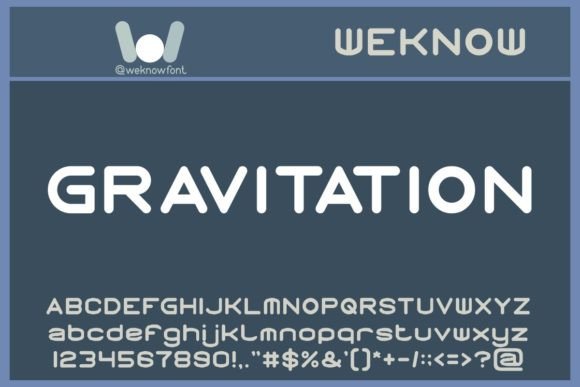
Prepare to be mesmerized by Gravitation Font, the sans serif font that's destined to elevate your creative projects to new heights. This font is a masterpiece of simplicity and sophistication, striking the perfect balance between classic elegance and modern flair.
Visualize your logo, logotype, or headline adorned with the clean lines and precise curves of Gravitation. Its timeless beauty will command attention, leaving an unforgettable impression on your audience. Whether you're a graphic designer, a marketer, or a creative entrepreneur, Gravitation is the ultimate tool to make your vision a reality.
Step into the world of Gravitation, where your imagination knows no bounds. This font family is a versatile chameleon, effortlessly adapting to a myriad of design endeavors. From corporate identities and apparel designs to posters, music and movie titles, Gravitation seamlessly blends into any aesthetic, adding a touch of sophistication and finesse.
Journey through the pages of your favorite magazine, captivated by the allure of Gravitation. Its crisp and legible characters dance across the page, guiding the reader's eyes through captivating stories and breathtaking visuals. Gravitation breathes life into every word, turning mere text into a symphony of visual delight.
Engage your audience on social media with the captivating allure of Gravitation. Create Instagram posts and YouTube videos that exude elegance and professionalism. Your content will shine with a distinctive charm, leaving your followers enthralled and eager for more.
Make your website a testament to your impeccable taste and attention to detail with Gravitation. Its clean lines and unassuming presence will enhance the user experience, ensuring that your website's message is conveyed with clarity and impact. Gravitation is the perfect font for showcasing your products, services, and ideas, leaving a lasting impression on your visitors.